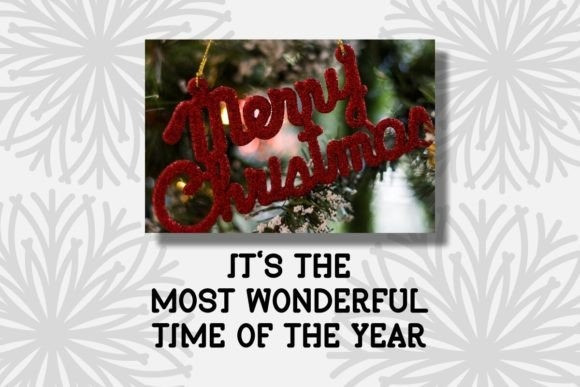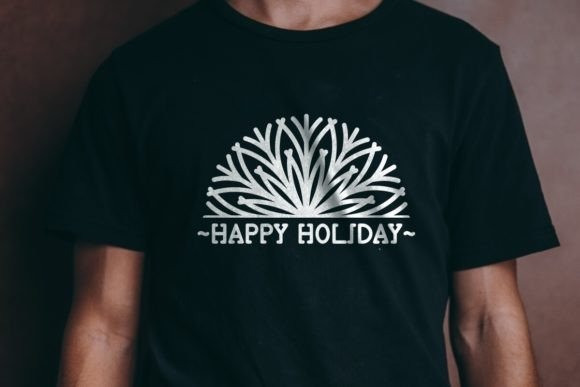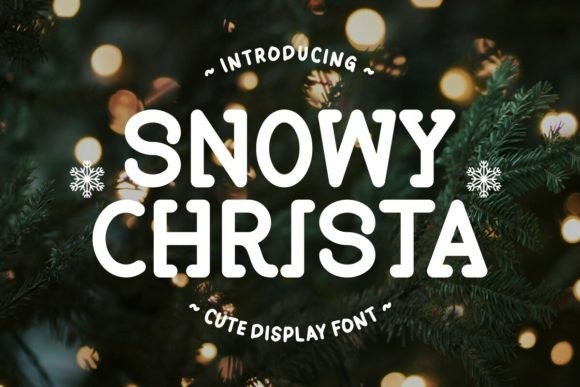
Snowy Christa Font
Snowy Christa Font This whimsical typeface captures the joy and charm of the holiday season, making it the perfect choice for all your Christmas-themed creative projects. This font perfect for Holiday Greetings, Invitations, Gift Wrapping, Decoration, Digital Art, Crafting and others.